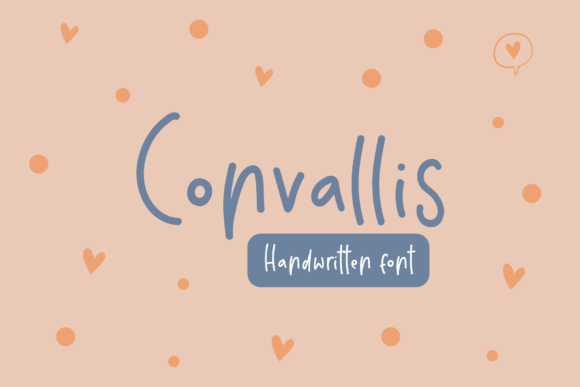
Introduction to Convallis Font
Use Convallis to create cute logos, branding, notebooks, journals, labels, stickers, blogs, quotes, greeting cards, tea towels, apparel, pillows, mugs, toys, posters, baby clothing, picture books, and so much more – basically anything that requires a stylish and handwritten look.
Key Features of Convallis Font
Why Choose Convallis Font?
Convallis Font offers exceptional quality and versatility, making it a valuable addition to your design toolkit. Whether you’re creating for personal projects or commercial use, Convallis Font delivers professional results.